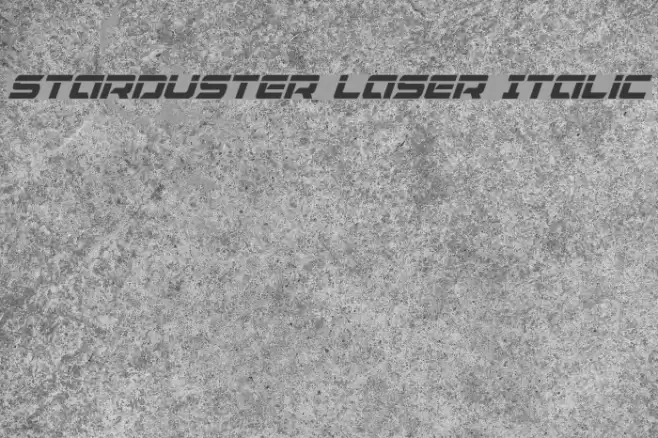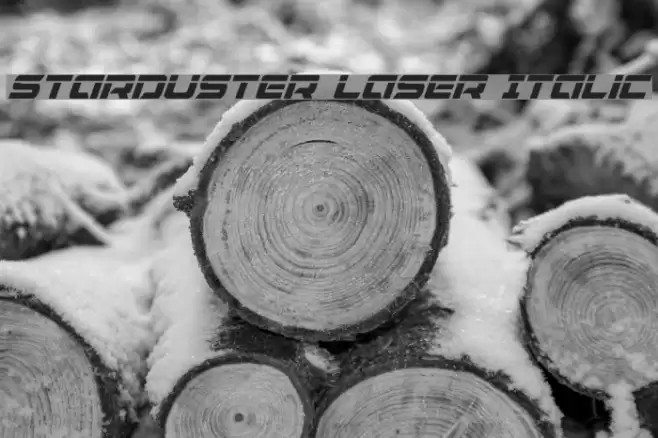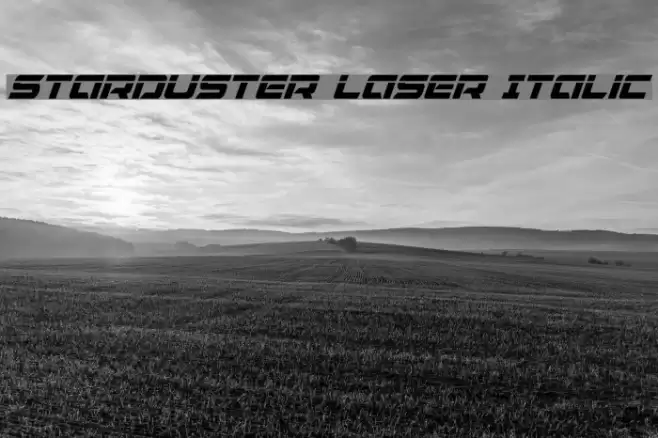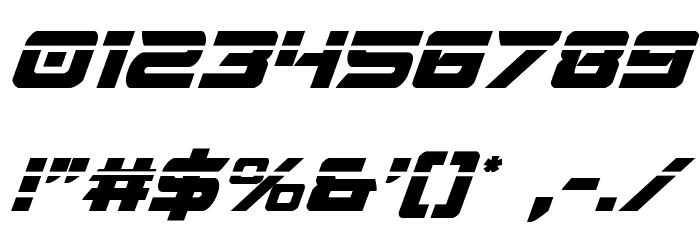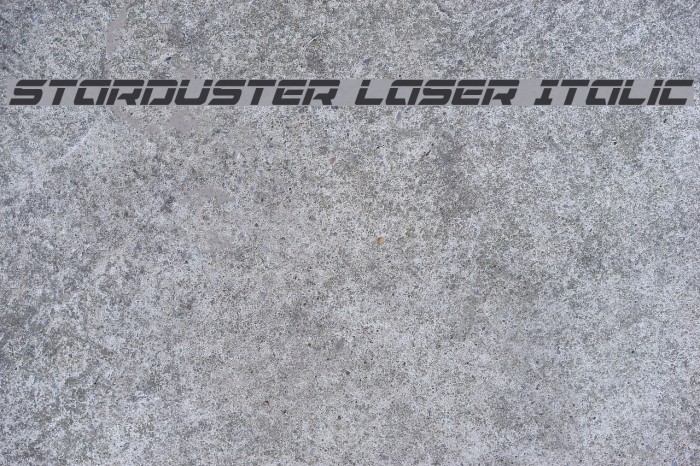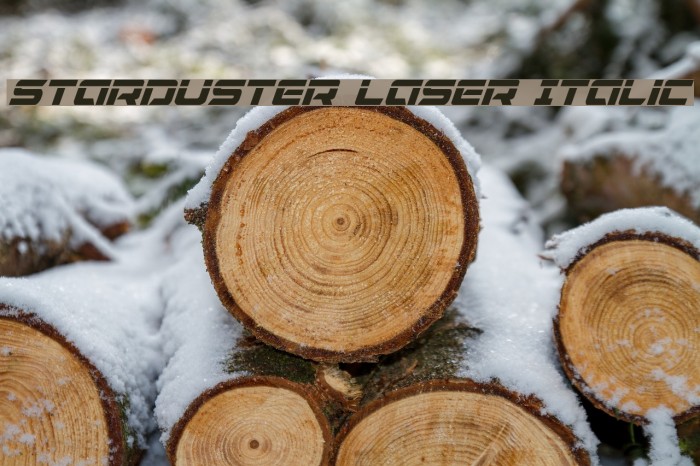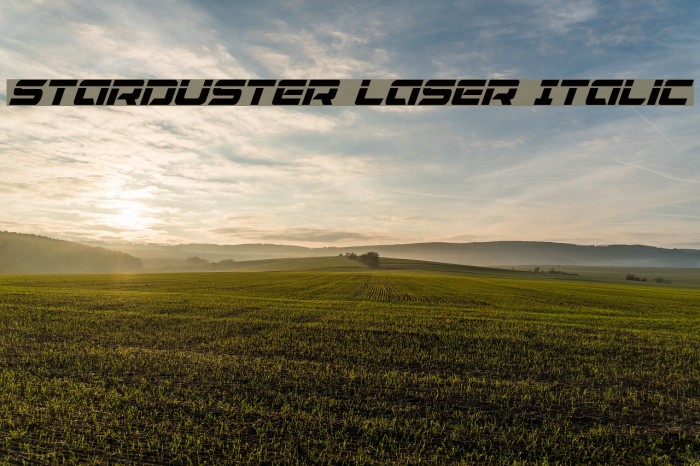
Starduster Laser Italic Font
Starduster Laser Italic Description
This font features a futuristic and dynamic design with a strong italic slant, giving it a sense of motion and speed. The characters are bold and angular, with sharp edges and a geometric structure that conveys a modern, high-tech aesthetic. The uppercase and lowercase letters maintain a consistent style, while the numerals and special characters integrate seamlessly into the overall design. The font's boldness and unique style make it suitable for projects that require a standout, eye-catching typeface.
A bold, italic, futuristic font with angular, geometric characters from Uncategorized fonts.
- Proposed Projects: Ideal for sci-fi themed designs, video game titles, technology branding, and futuristic posters.
- Overall Style: Futuristic